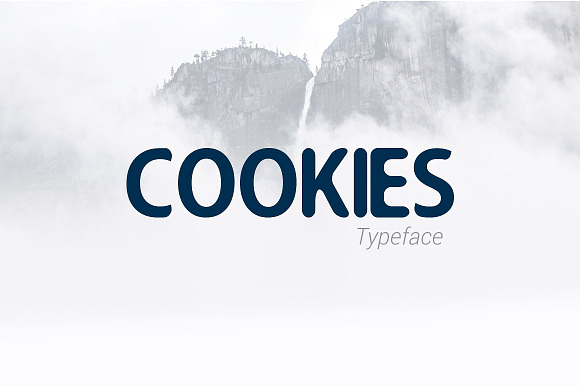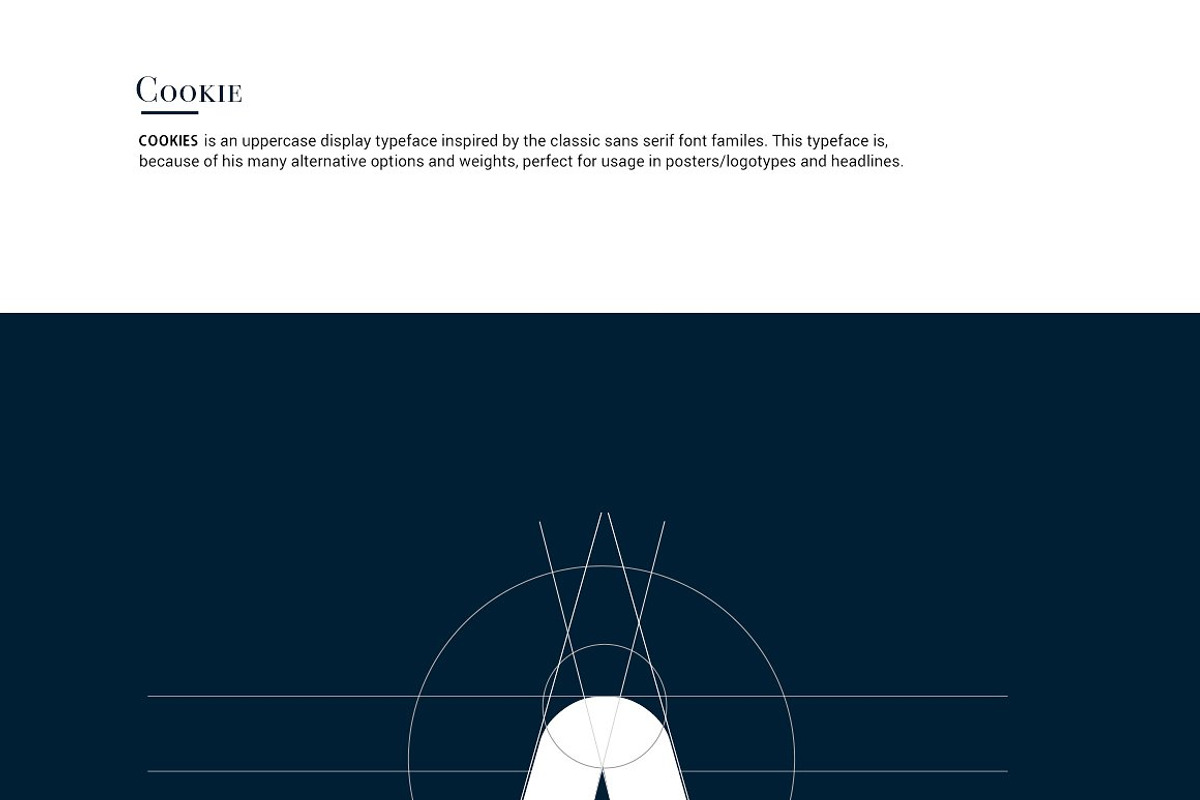
Introducing new typeface called Cookies Font which is perfect for Logo, Logo type, quotes, apparel design, invitations, flyer, poster, greeting cards, product packaging, headers, printed quotes, cover album, etc.
Download Best Cookies Font by DuoFankaar fits naturally into Branding, posters, packaging, typography.